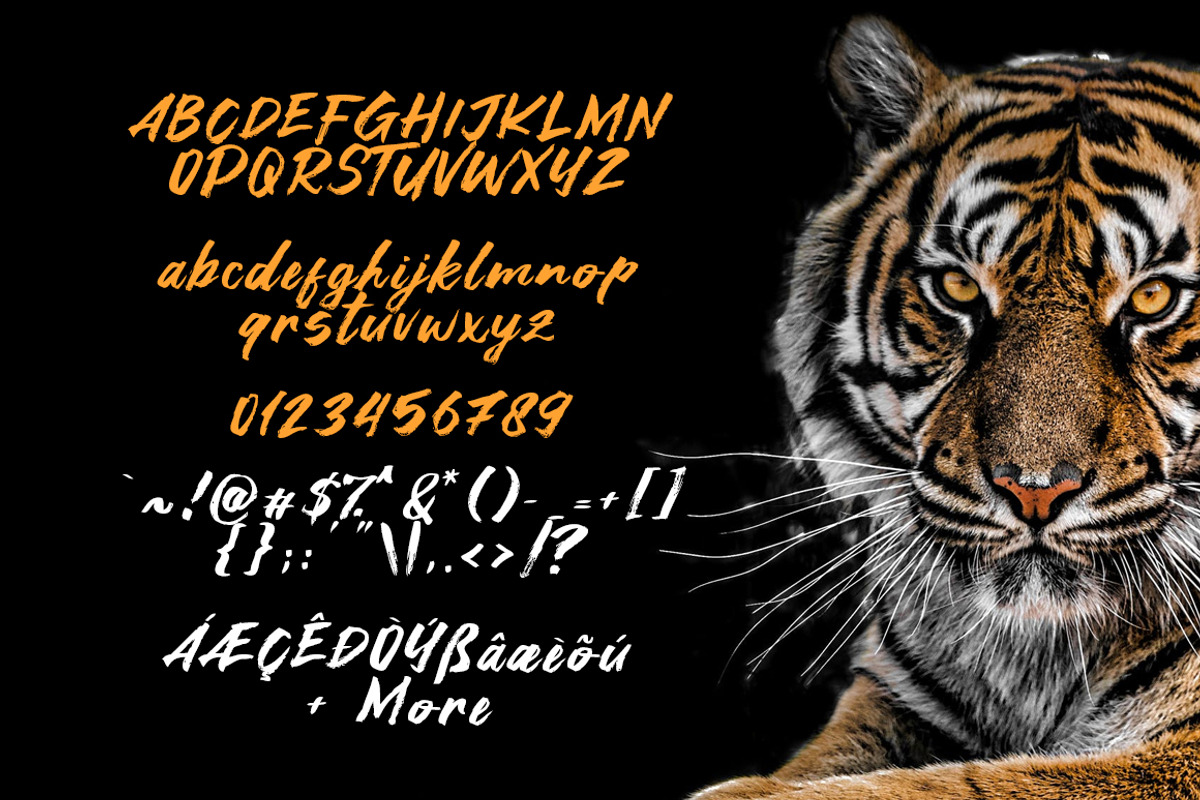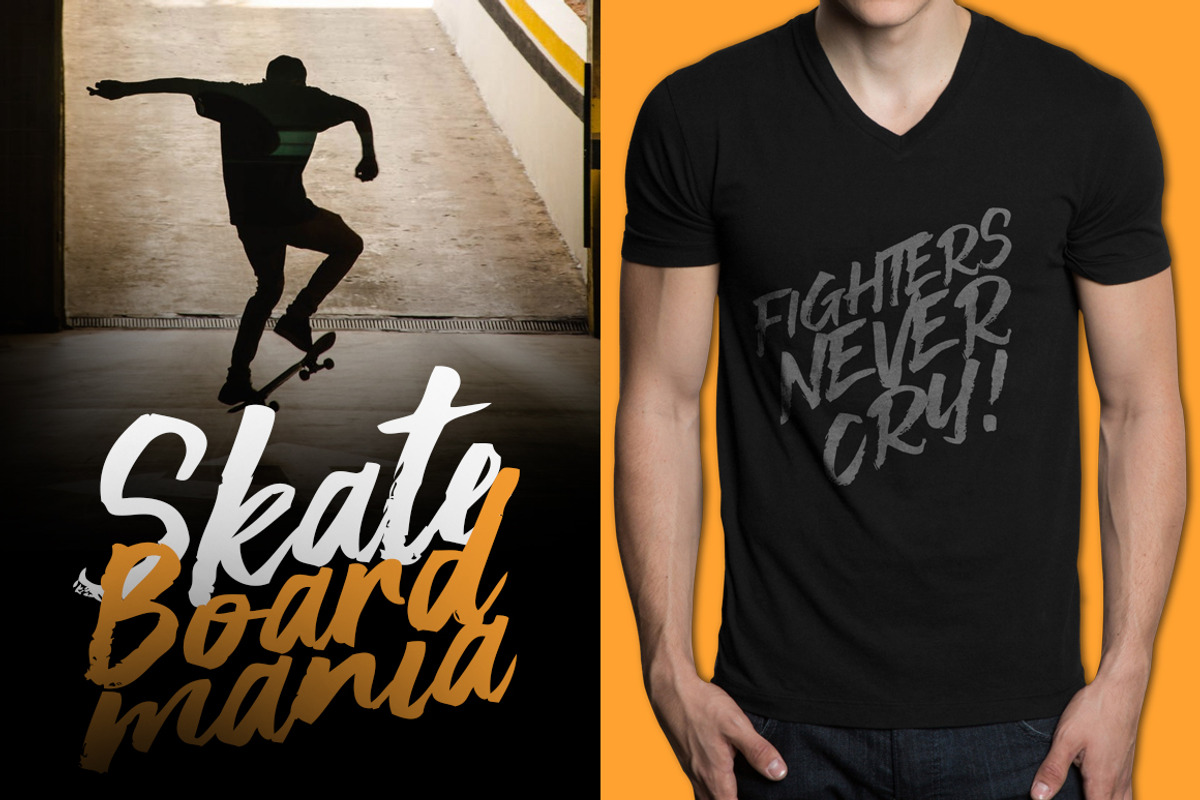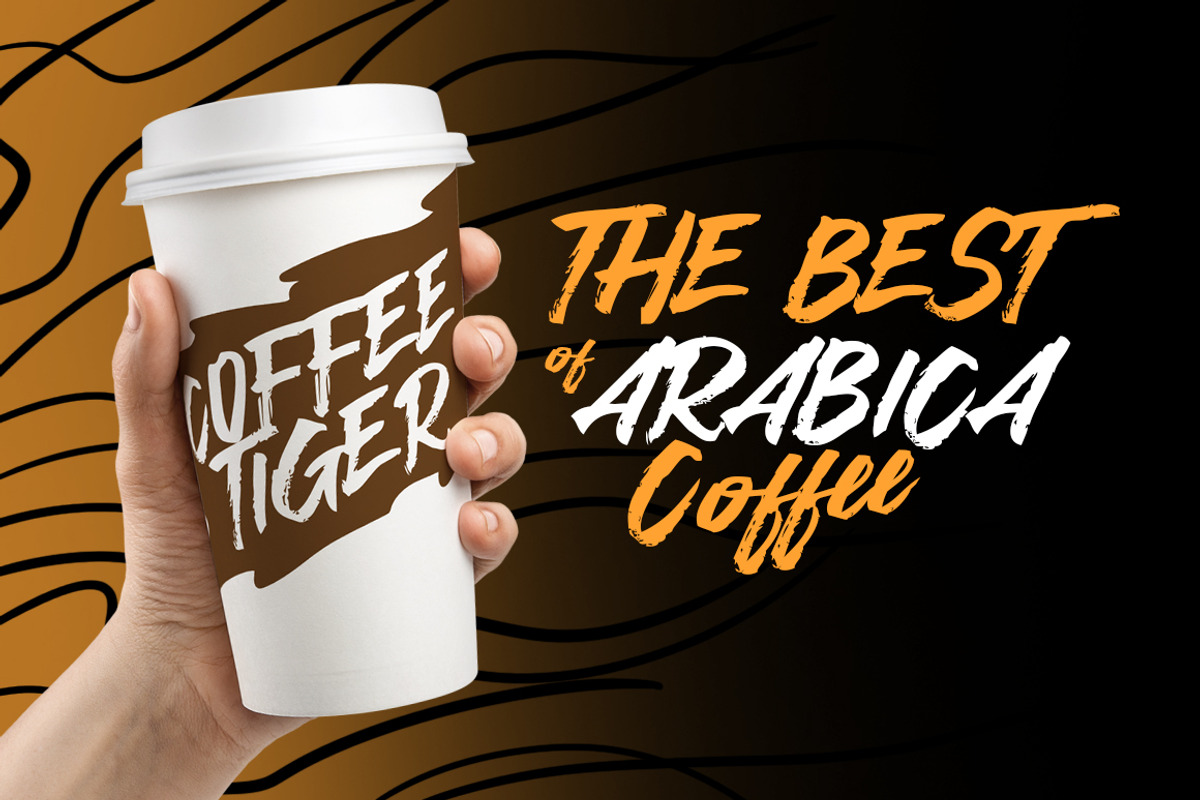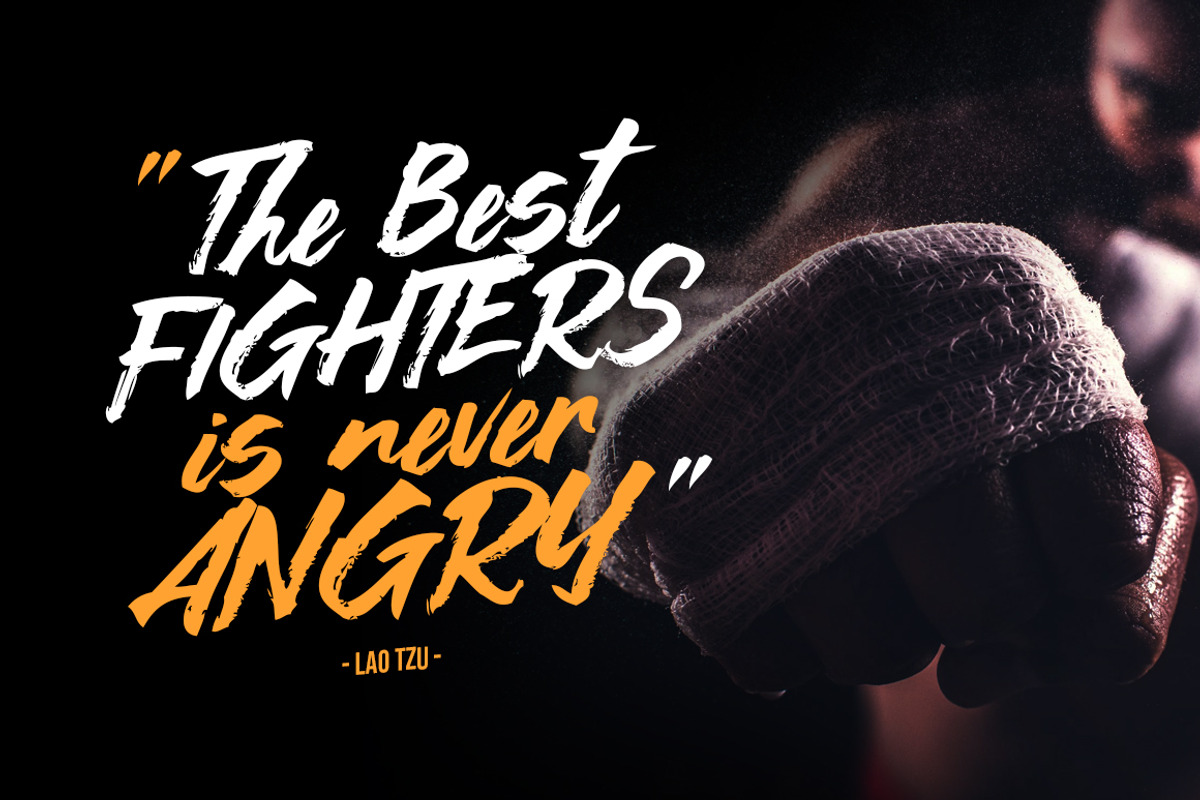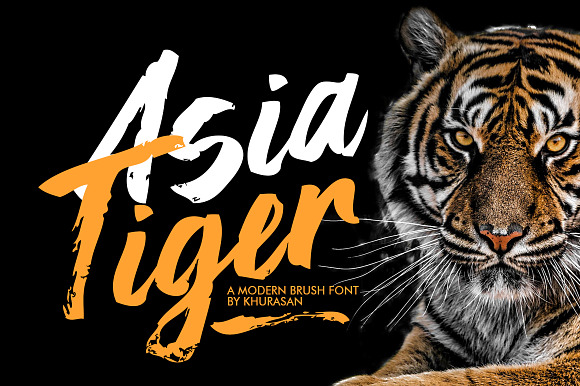
Asia Tiger Brush Font
The Asia Tiger is a fresh modern script font, elegant and modern feel character set. The Asia Tiger font includes a full set capital and lowercase letters, as well as multi-lingual support, swashes, numerals, & punctuation.
Numeral & punctuation
Multilingual support for; ä ö ü Ä Ö Ü ß ¿ ¡ & more
Asia Tiger Brush Font by khurasan fits naturally into Branding, posters, packaging, typography.